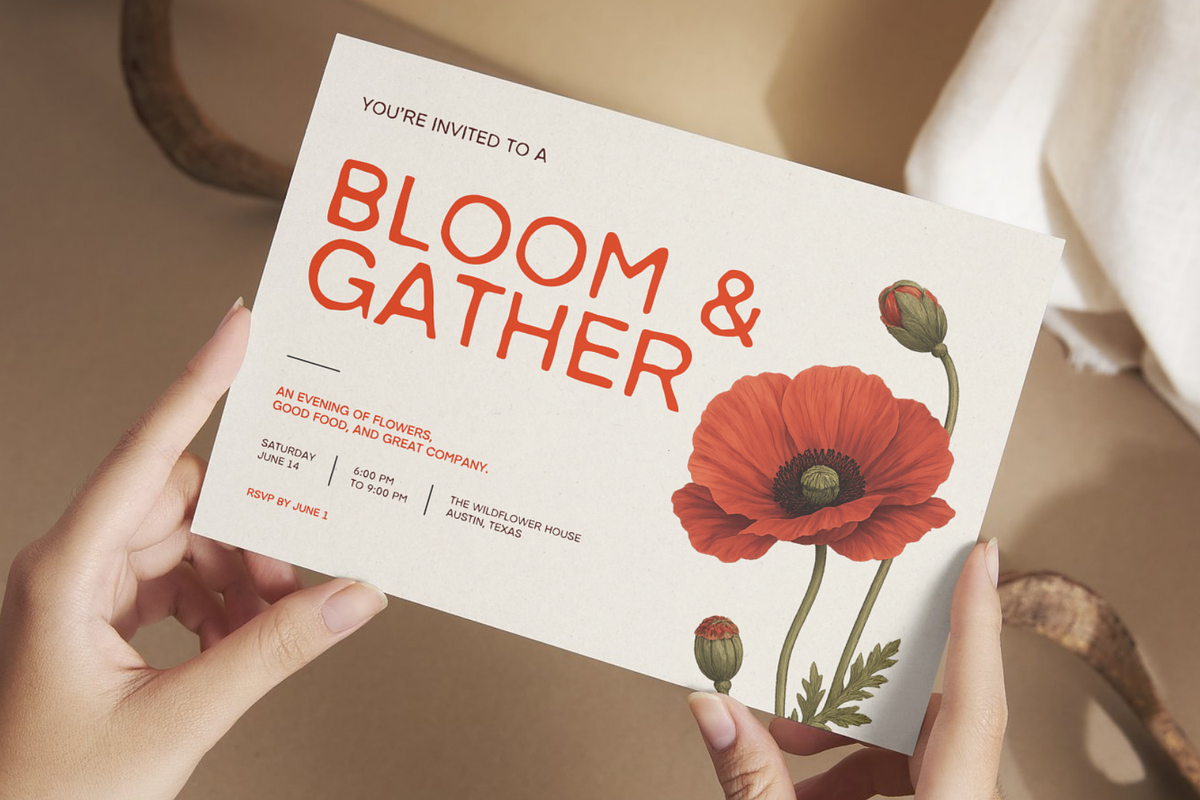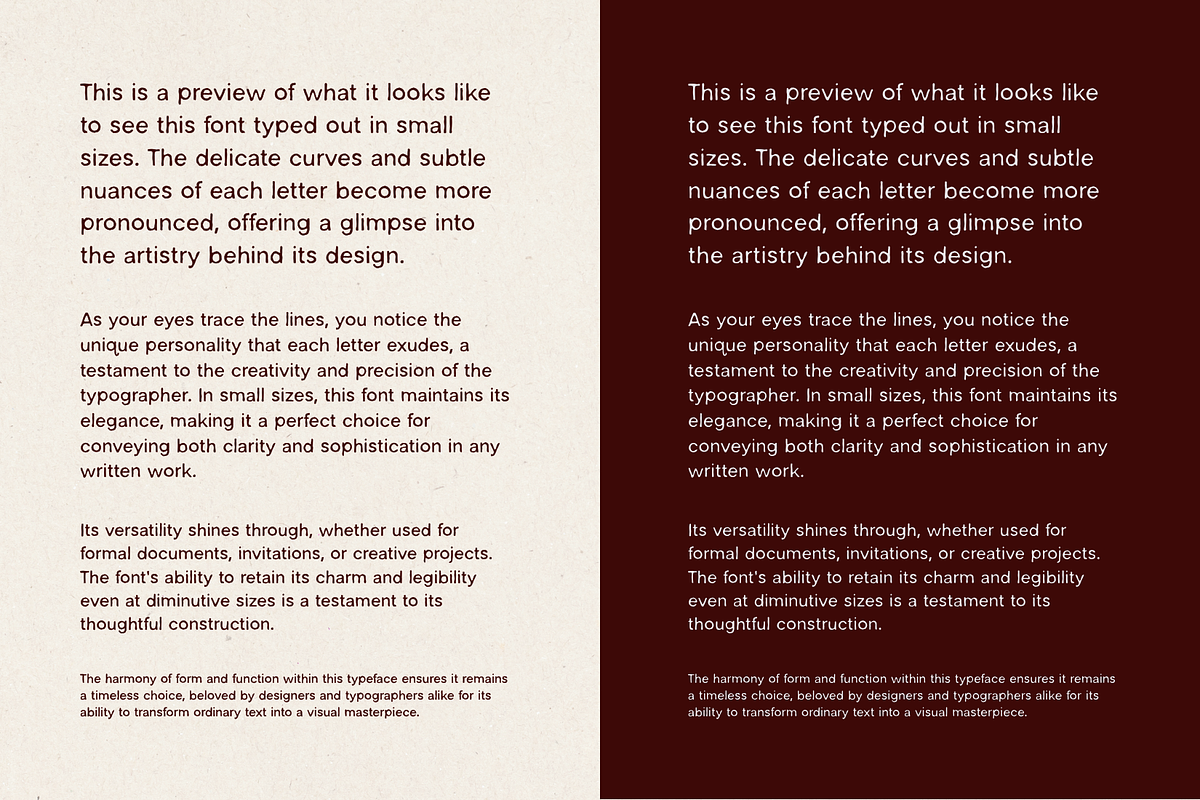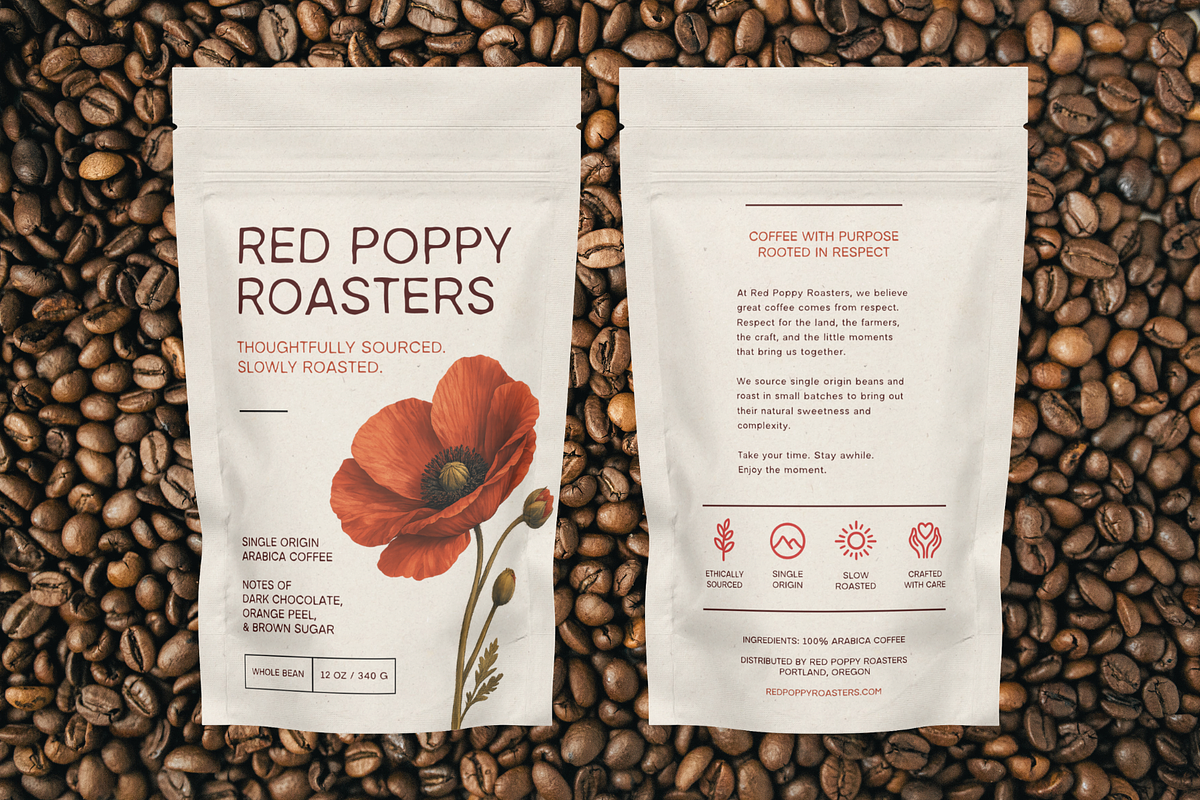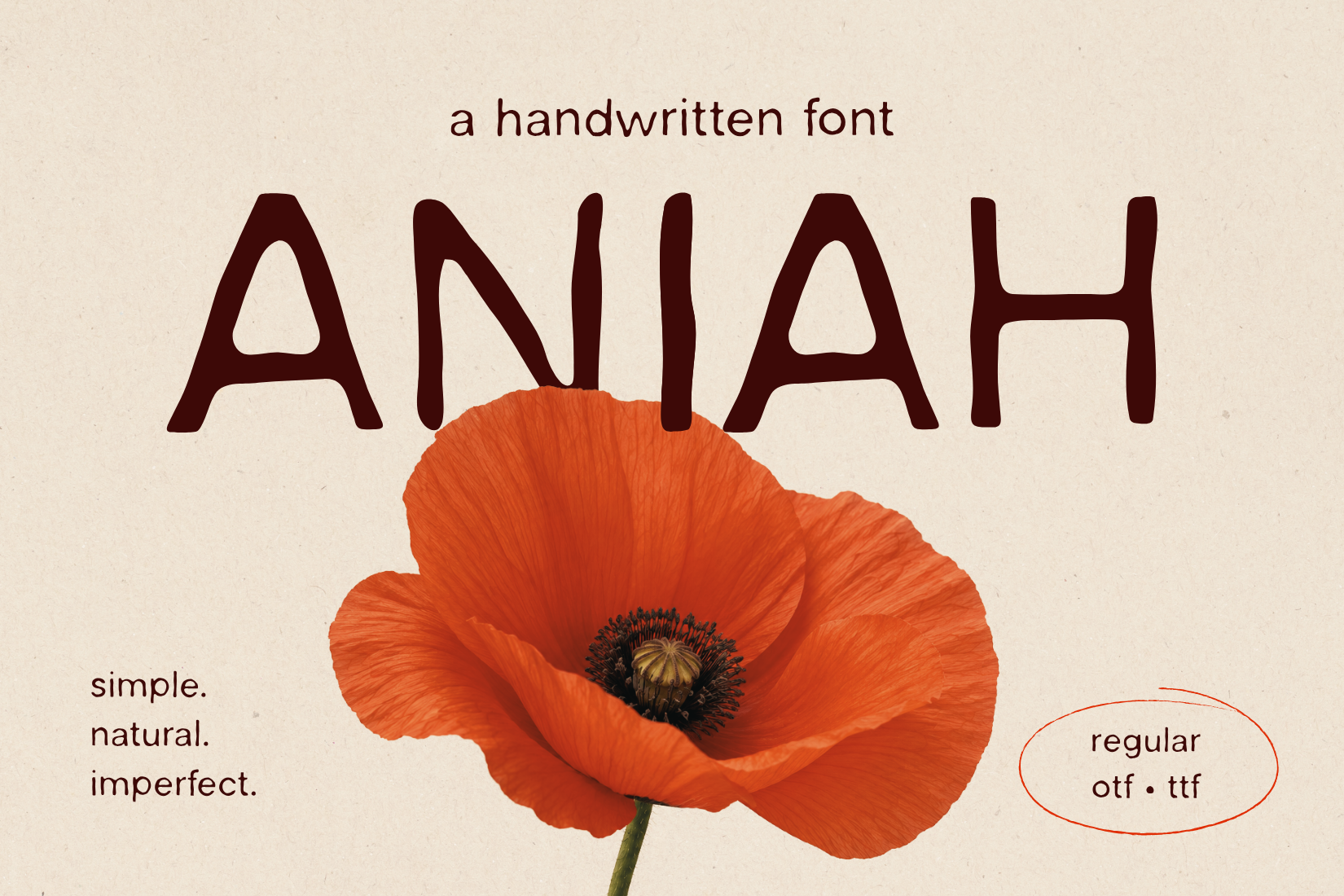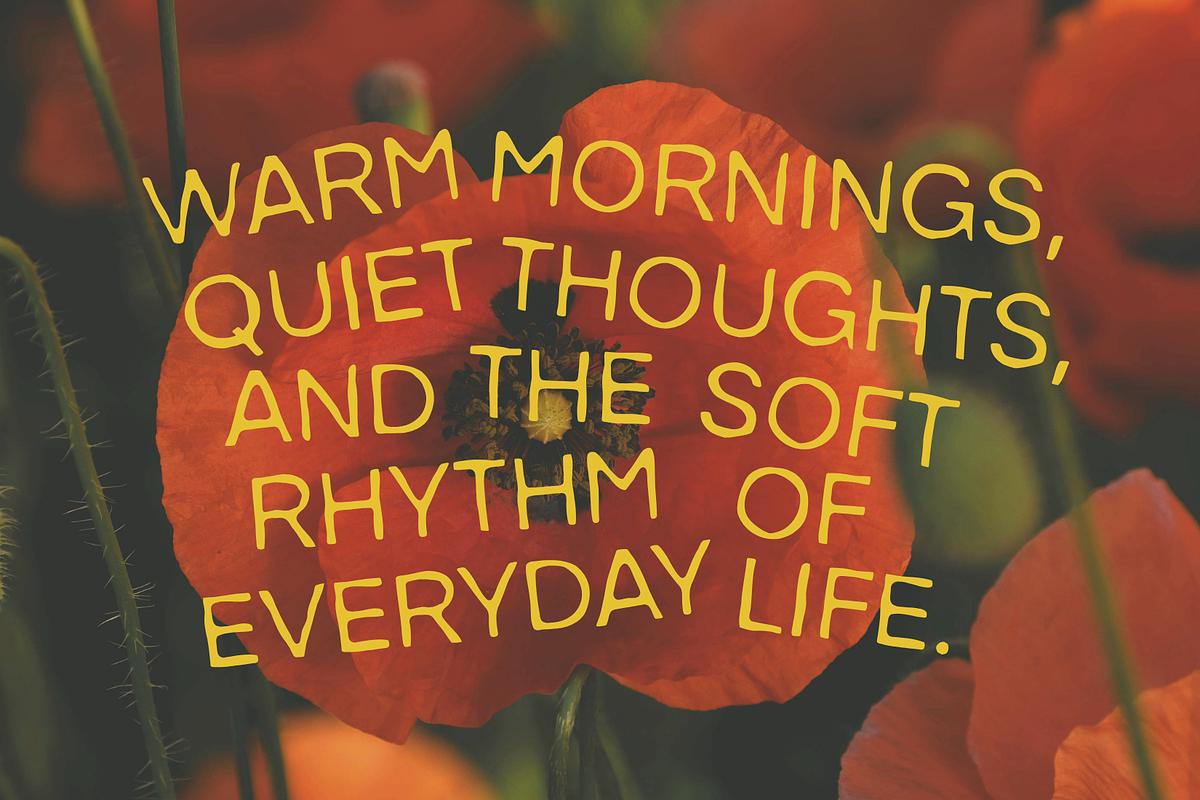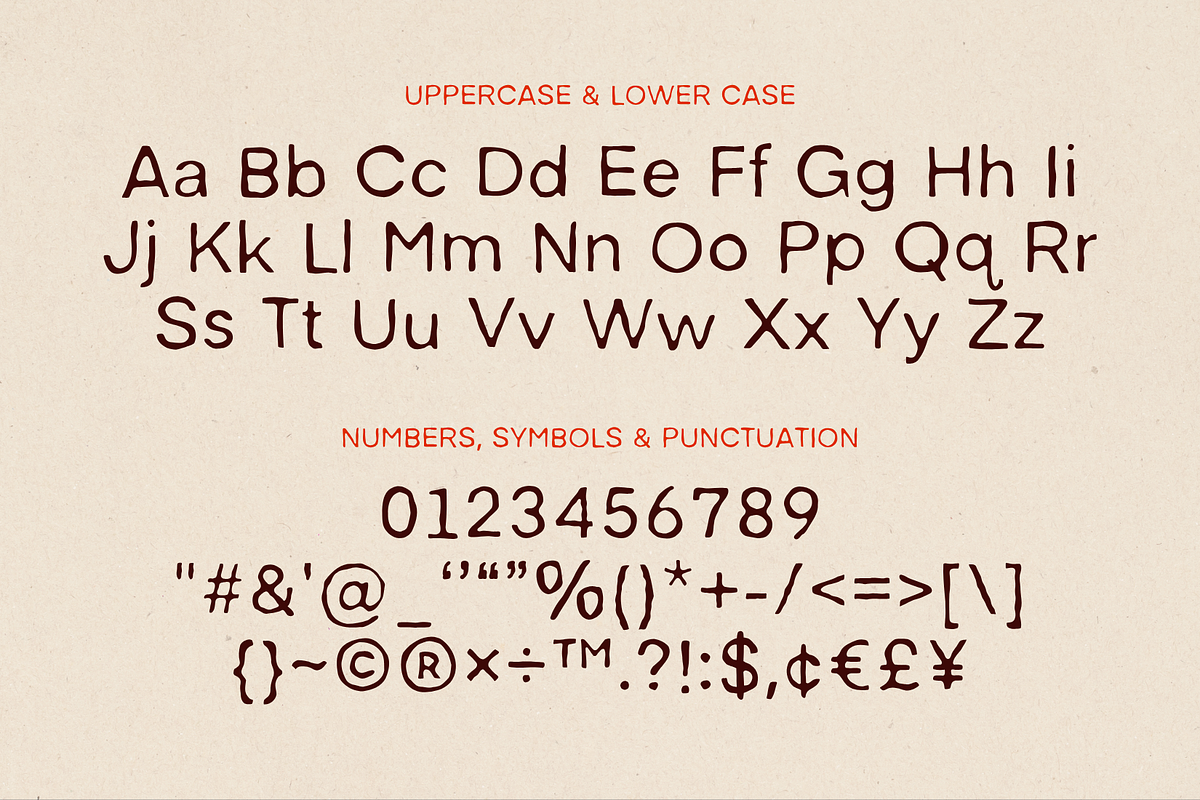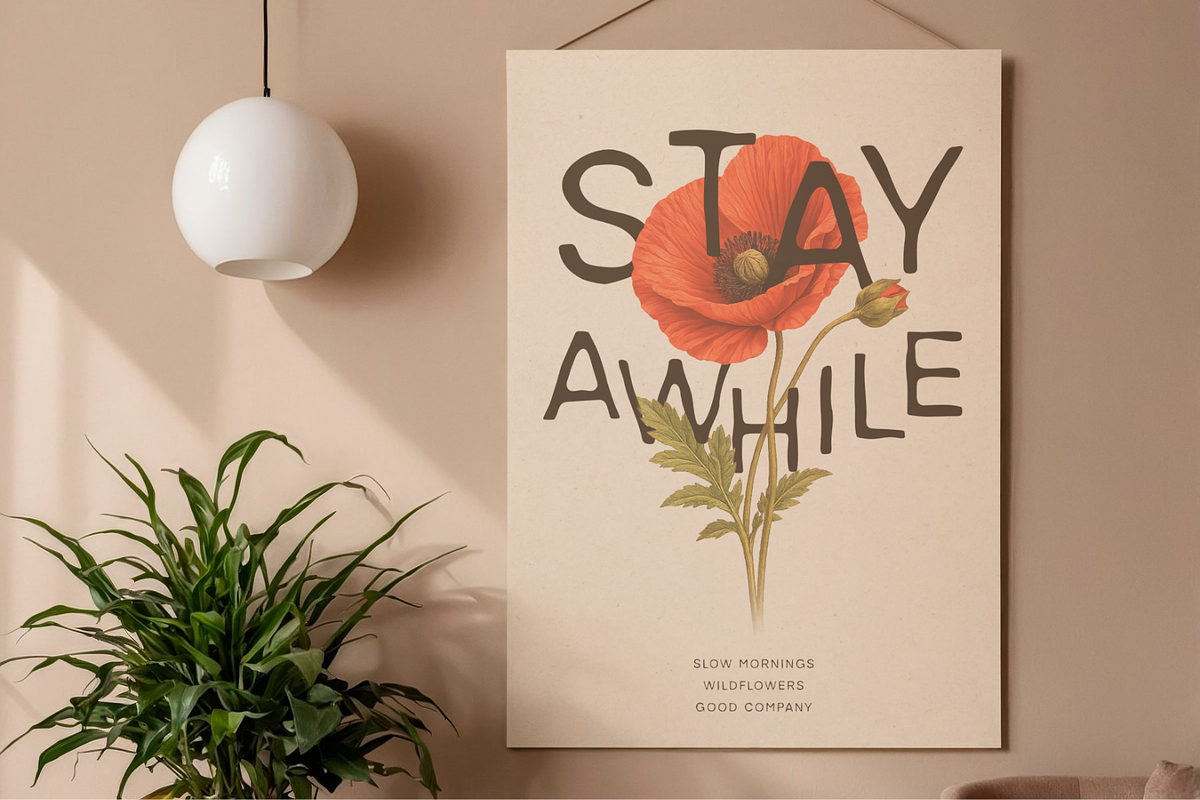
ANIAH | Organic Handwritten Typeface
Meet ANIAH, a modern handwritten font with an organic, handcrafted feel. Designed with natural imperfections and a relaxed character, ANIAH brings warmth and personality to any creative project while remaining clean and easy to read.
Its simple letterforms make it perfect for invitations, greeting cards, branding, packaging, product labels, social media graphics, posters, quotes, children's products, stationery, and more.
PERFECT FOR
• Invitations • Greeting cards • Branding & logos • Packaging design • Product labels • Social media graphics • Posters & quotes • Children's products • Stationery & print projects
Whether you're creating a boutique brand, designing custom invitations, or adding a personal touch to your next creative project, ANIAH offers a natural handwritten style that feels authentic, approachable, and timeless.